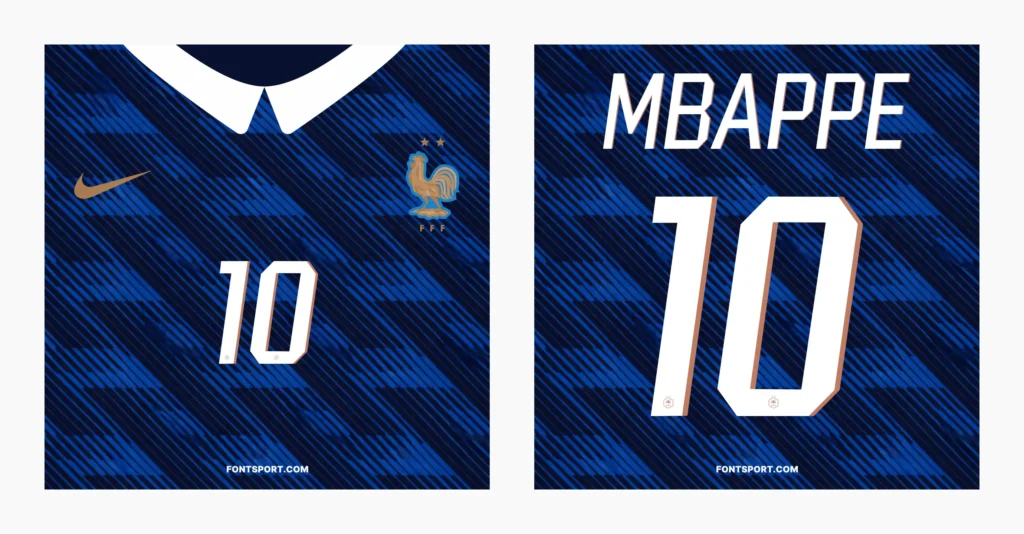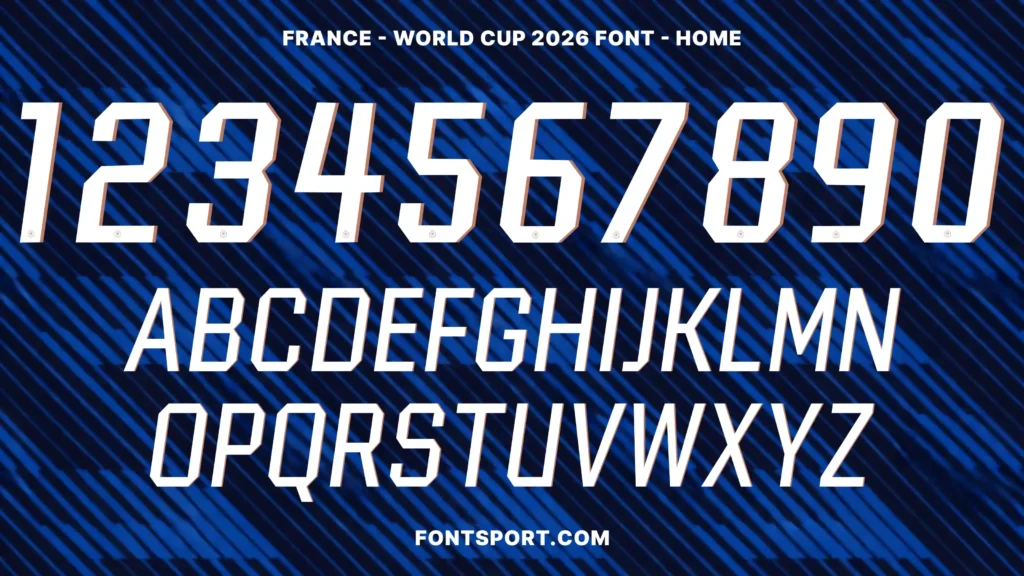
What Is the France World Cup 2026 Font — Home?
France World Cup 2026 Font – Home is a condensed italic sport typeface based on the official jersey lettering of the French national football team for the 2026 FIFA World Cup. It replicates the name and number style applied to France’s home kit, giving designers direct access to authentic match-day typography.
The font captures the visual identity of one of world football’s most recognized national teams. It is built specifically for jersey printing, fan-facing graphics, and football design projects that require official-style lettering. The typeface combines a dynamic italic angle with high legibility at large display sizes.
Design Characteristics of the France World Cup 2026 Font
Geometry and Structure
The letterforms follow a condensed skeleton with a consistent forward italic axis. This creates a tall, narrow profile that suits both tight chest-area name prints and larger back-of-shirt number placements. The cap height is generous relative to the overall body, reinforcing the bold visual presence typical of international football typography.
Numerals use a slightly rounded geometry with broad strokes. The zero is clearly differentiated from the letter O, which is essential in jersey numbering contexts. Corners are softened to avoid aggressive angularity, keeping the overall register athletic rather than aggressive.
Weight and Contrast
The font operates at a single display weight. Stroke contrast is low — strokes remain consistently thick throughout each character. This approach maximises readability on dark fabric backgrounds, particularly the navy home kit worn by France. The numerals also feature a warm copper-tone shadow detail, adding dimensional depth when rendered at large scale.
Number System and Special Characters
The numeral set runs from 0 to 9 in a tabular, fixed-width design. Each figure occupies a consistent horizontal unit, enabling predictable spacing in two-digit combinations such as 10 or 23. The shadow treatment on numerals is a deliberate design choice, referencing the layered print technique used on physical match kits. The uppercase alphabet covers A to Z with consistent italic styling throughout.
France World Cup 2026 Font: Sport Applications and Use Cases
Primary Football Context
The most direct use case is jersey name and number graphics. The font reproduces the exact visual language applied to France’s home kit for the 2026 tournament. Designers working on fan kit customizers, print-on-demand shirt services, or official-style football graphics can apply this typeface directly without visual compromises.
Digital and Broadcast Use
Beyond print, the font performs well in digital contexts. Broadcast lower-thirds showing player names and squad numbers benefit from the condensed profile, which reads clearly at standard HD resolution. Similarly, esport-style overlays for football simulation games can use the font to create authentic kit-style name tags. The consistent stroke weight holds at both screen resolution and high-DPI display output.
Who Should Use the France World Cup 2026 Font?
The France World Cup 2026 Font – Home is designed for football designers, fan content creators, and sport graphic studios who need accurate kit-style typography for France national team projects. It is the right choice for anyone producing official-style jersey mockups, World Cup fan art, or football broadcast graphics tied to France’s 2026 campaign.
Furthermore, print studios offering custom football shirt printing will find the tabular numeral system especially practical. The font also suits motion designers creating World Cup highlight packages or player tribute videos, where authentic kit lettering adds visual credibility. It is not intended as a general-purpose display font — its positioning is specific to football and sport design contexts.
Technical Details and Features
The France World Cup 2026 Font – Home includes the following specifications:
- Character coverage: Full uppercase Latin alphabet (A–Z) and numeral set (0–9)
- Style: Condensed italic, single weight display
- Shadow detail: Warm copper-tone numeral shadow included in glyph design
- OpenType features: Standard glyph set; no stylistic alternates noted in base version
- Intended use: Display and print at large sizes; not optimised for body text
Final Thoughts on the France World Cup 2026 Font